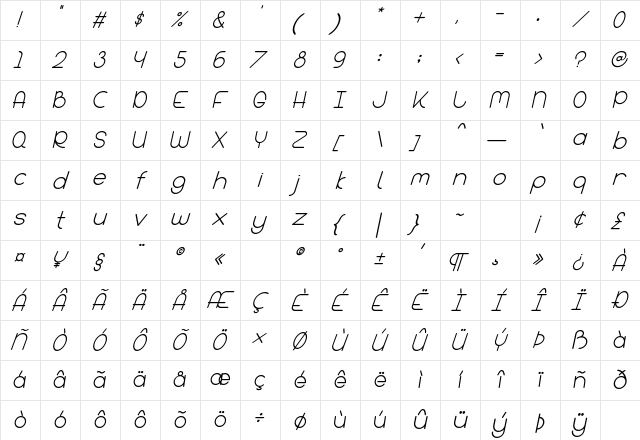
Bandar Italic Free Font
Bandar Italic
Designer: Afkari Studio KanaType
Complete Bandar Italic glyph index. Displaying only characters natively supported by Bandar Italic font.
Design Context for Bandar
Bandar is a composed and adaptable typeface that performs quietly and consistently across a wide range of design contexts. The slanted form adds forward momentum and visual energy.